There’s a certain kind of magic that only typography can deliver—and for me, nothing captures that better than whimsical fonts. As a graphic designer, I’m always on the lookout for those unexpected typefaces that turn simple text into something that feels alive, joyful, and full of imagination.
Whimsical fonts aren’t just decorative—they’re storytellers. They bring a sense of wonder to everything they touch, whether it’s a dreamy wedding invite, a playful children’s book, or a brand that wants to stand out with charm and creativity.
Some fonts feel like they’ve been sprinkled with fairy dust—equal parts quirky and elegant, playful yet polished. I’ve spent more hours than I’d like to admit down rabbit holes of type, chasing that perfect balance of fun and finesse.
So if you’re ready to add a little enchantment to your next design, you’re in the right place. In this roundup, we’ll explore the most delightful whimsical fonts of 2026—ones that spark joy, stir curiosity, and make your work unforgettable. Brew a warm cup of something lovely, and let’s dive in.
The Most Enchanting Whimsical Fonts of 2026
Let’s be honest – not all whimsical fonts are created equal. Some have that special spark that makes your heart skip a beat, while others feel forced or overly cutesy. I’ve curated a collection of the most genuinely magical whimsical fonts that strike the perfect balance between charm and usability.
Whimsy
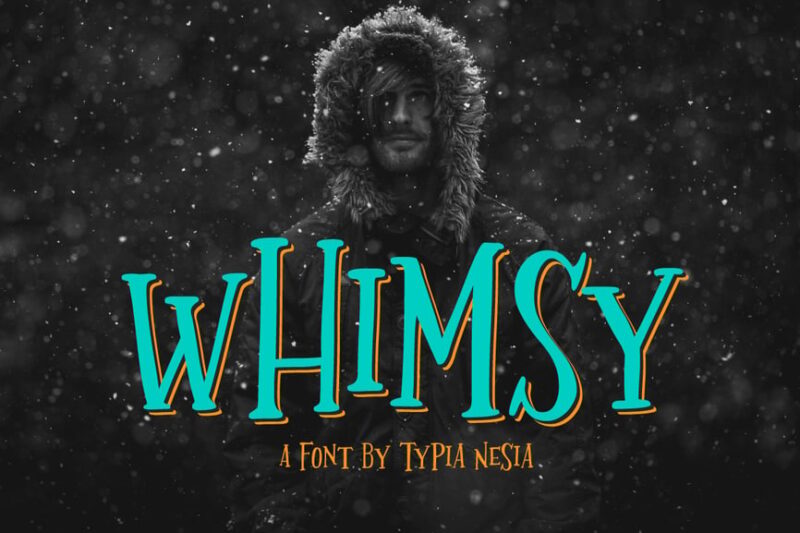
Whimsy is a playful and enchanting font that combines serif, decorative, script, and handwritten styles. It’s perfect for projects that require a touch of fantasy and whimsical charm, making it ideal for children’s books, magical-themed designs, or any creative work that aims to evoke a sense of wonder.
Wonderful Today
Wonderful Today is a versatile font family that includes serif, sans-serif, script, handwritten, and decorative styles. This cute and whimsical typeface is perfect for creating designs with a friendly and approachable feel, suitable for greeting cards, invitations, or branding projects that aim to convey warmth and charm.
Dazzling Monkey
Dazzling Monkey is a thin decorative font with a playful and kid-friendly aesthetic. Its quirky and energetic character makes it an excellent choice for children’s products, educational materials, or any design that requires a fun and lively typographic element.
Whimsy World
Whimsy World is a decorative font that embodies quirky and cartoon-like qualities. Its unique and imaginative letterforms make it perfect for creating eye-catching headlines, logos, or illustrations in projects that aim to capture a sense of playfulness and creativity.
Happy Swirly
Happy Swirly is a script and handwriting font that exudes joy and playfulness. Its fluid, energetic strokes and cheerful character make it ideal for designs that need to convey a sense of happiness and positivity, such as greeting cards, social media posts, or cheerful branding materials.
Norms
Norms is a decorative font with a whimsical and playful personality. Its unique letterforms and charming details make it perfect for creating attention-grabbing headlines, logos, or designs that require a touch of quirkiness and fun, especially in projects aimed at children or the young at heart.
Casual Dreams
Casual Dreams is a multilingual playful font in the script and handwritten style. Its storybook-like quality and casual nature make it perfect for children’s literature, educational materials, or any design that aims to create a friendly and approachable atmosphere across multiple languages.
Happy Feet
Happy Feet is a playful and whimsical decorative font designed with a focus on children’s themes. Its lively and energetic character makes it ideal for creating fun and engaging designs for kids’ products, educational materials, or any project that requires a touch of youthful exuberance.
Cookies Party
Cookies Party is a quirky script and handwritten font that brings a sense of celebration to any design. Its playful and informal style makes it perfect for creating invitations, party-themed designs, or any project that aims to convey a fun and festive atmosphere.
Periwinkle
Periwinkle is a decorative font that combines a fun aesthetic with a subtle nod to its namesake color. Its unique and playful character makes it ideal for creating eye-catching headlines, logos, or designs that require a touch of whimsy and charm, particularly in projects with a soft or pastel color palette.
Flower Child
Flower Child is a whimsical cursive font in the script and handwritten style. Its organic, flowing strokes and bohemian vibe make it perfect for creating designs with a free-spirited and natural feel, ideal for projects related to nature, wellness, or any theme that embraces a carefree and artistic aesthetic.
In the end, whimsical fonts remind us that design should bring joy. In a world that often feels too serious, these delightful typefaces offer moments of lightness, wonder, and pure visual pleasure.
So go ahead – add a little magic to your next design project. Your audience will thank you for it, and you might just find yourself smiling a little more at your computer screen. After all, if typography can’t bring us joy, what’s the point?